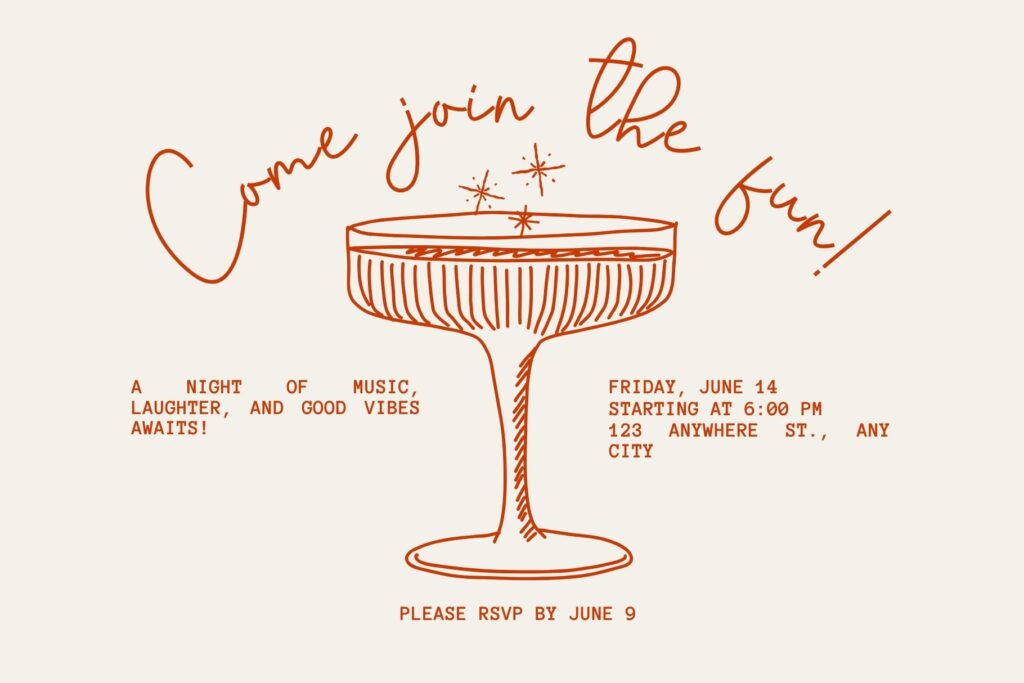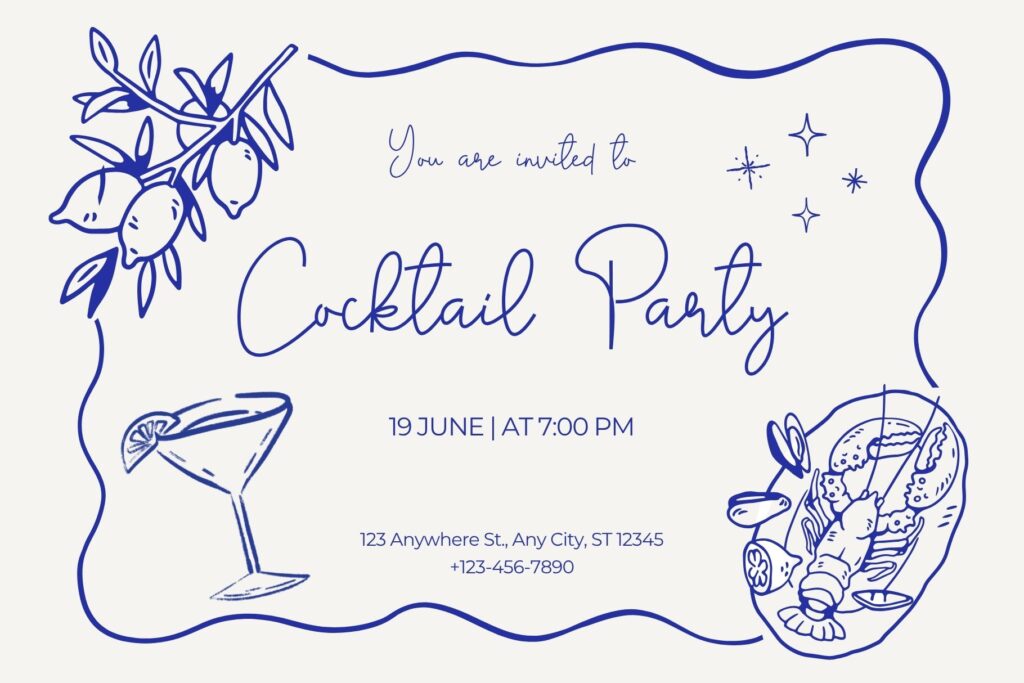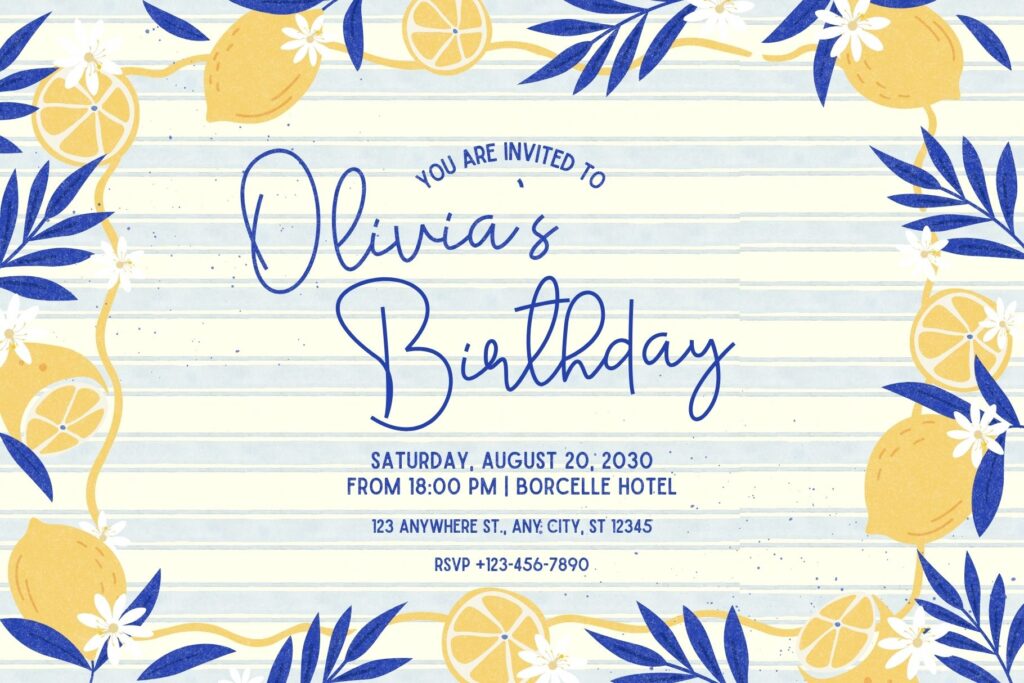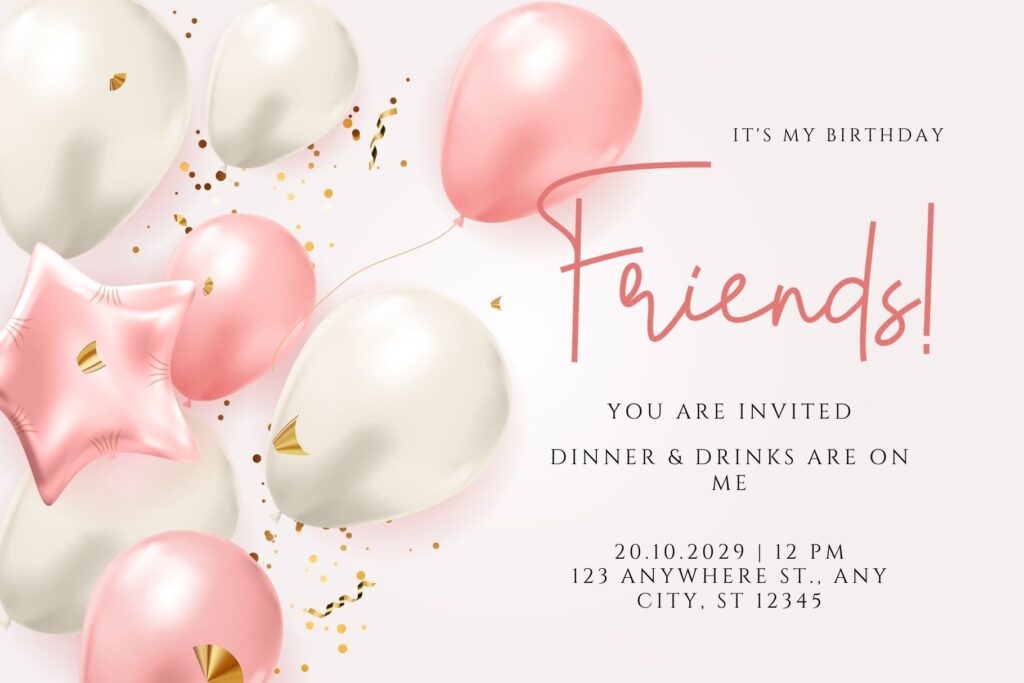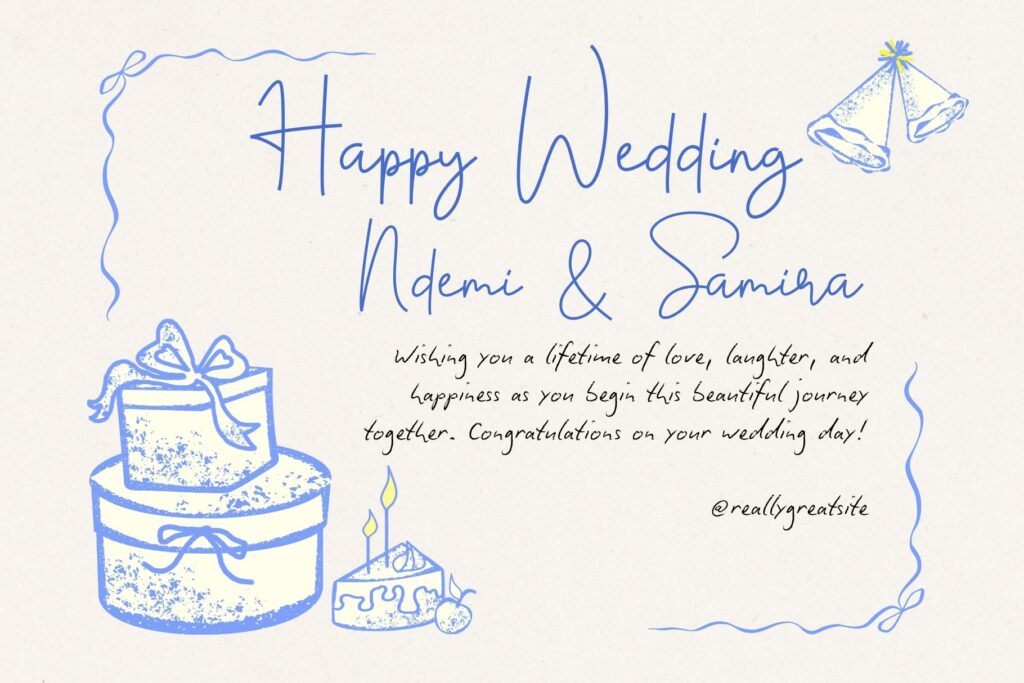
Falmured Font by Koplexs Studio was created to solve that problem. It combines a natural handwritten style with smooth curves and elegant strokes, making it suitable for businesses, designers, content creators, and anyone looking for a premium script typeface without licensing concerns.
Whether you’re designing logos, wedding invitations, restaurant menus, product packaging, or social media graphics, Falmured delivers a clean handwritten aesthetic while remaining easy to read.
Why Choose Falmured Font?
Falmured is designed to imitate authentic handwriting while maintaining professional consistency.
Its flowing characters create a warm and personal feel that works across both digital and print media.
Some of its standout characteristics include:
- Natural handwritten appearance
- Elegant script lettering
- Smooth connecting characters
- Clean readability
- Suitable for modern branding
- High-quality glyph spacing
Instead of looking overly decorative, Falmured balances elegance with simplicity, making it versatile for many design styles.
Perfect for Branding Projects
Modern brands need typography that feels authentic.
Falmured helps create memorable visual identities for:
- Logo design
- Boutique brands
- Beauty products
- Handmade businesses
- Fashion labels
- Coffee shops
- Artisan products
- Personal brands
Its handwritten appearance adds personality while remaining polished enough for professional branding.
Beautiful for Wedding Designs
If you’re looking for free wedding fonts, Falmured is an excellent option.
Its elegant script style complements romantic stationery such as:
- Wedding invitations
- RSVP cards
- Save the date cards
- Seating charts
- Wedding signage
- Thank you cards
- Bridal shower invitations
The flowing letterforms create an elegant atmosphere without sacrificing readability.
Excellent Choice for Restaurant Menus
Typography plays a huge role in food branding.
Falmured also works beautifully as one of the most attractive menu fonts for:
- Café menus
- Restaurant branding
- Dessert shops
- Bakery packaging
- Drink menus
- Coffee labels
- Food promotions
Its handwritten style creates a welcoming and handcrafted impression.
Ideal for Social Media Content
Designers and marketers often need typography that attracts attention instantly.
Falmured works well for:
- Instagram quotes
- Pinterest graphics
- YouTube thumbnails
- Facebook banners
- TikTok covers
- Promotional posts
- Story templates
Its handwritten personality makes social content feel more authentic and engaging.
A Handwriting Font with Professional Quality
Falmured was carefully developed to provide the natural look of handwritten lettering while keeping each character balanced for everyday design work.
Unlike many casual script fonts, it maintains consistent spacing and smooth letter connections.
Great Alternative to Popular Script Fonts
If you’re browsing for a best font script option, Falmured offers a modern alternative to common script typefaces.
Its elegant curves make it suitable for:
- Signature logos
- Luxury branding
- Product labels
- Greeting cards
- Book covers
- Editorial design
- Beauty packaging
The result is sophisticated without becoming overly formal.
Works Beautifully as a Cursive Font